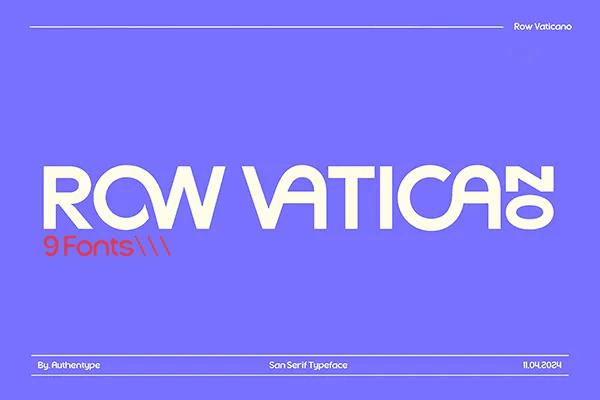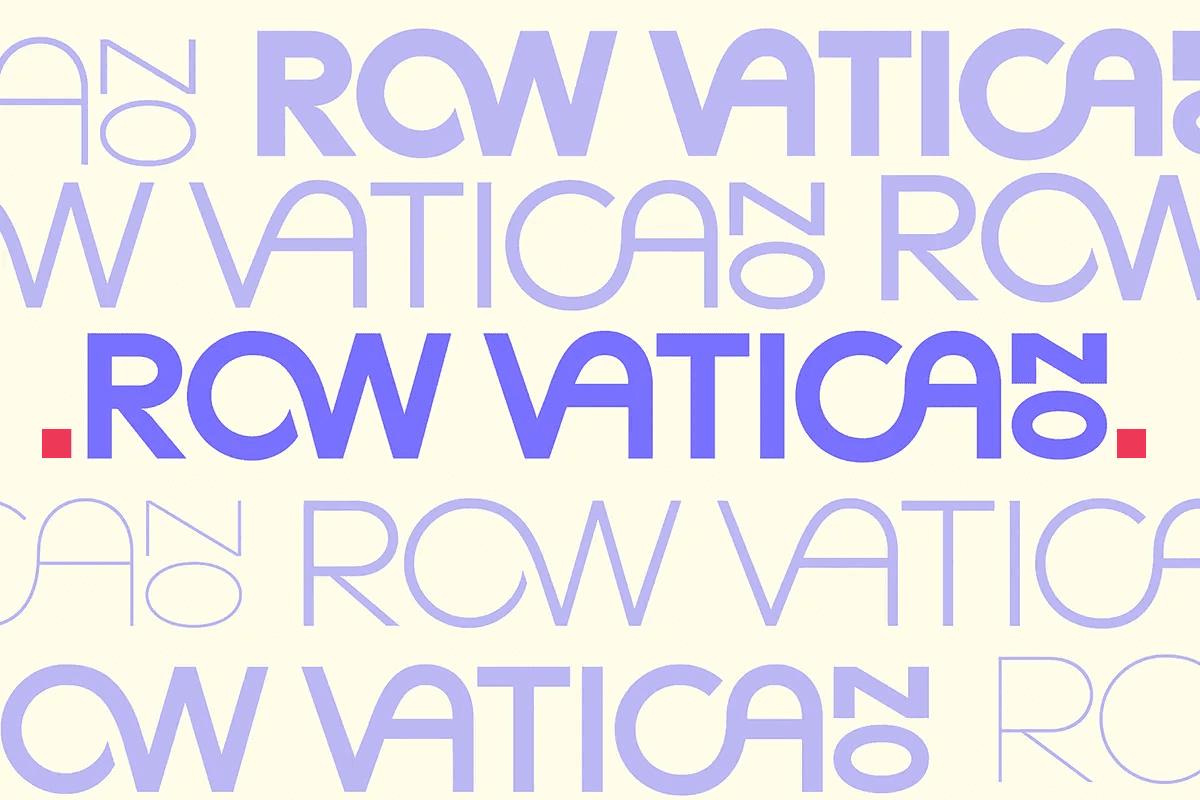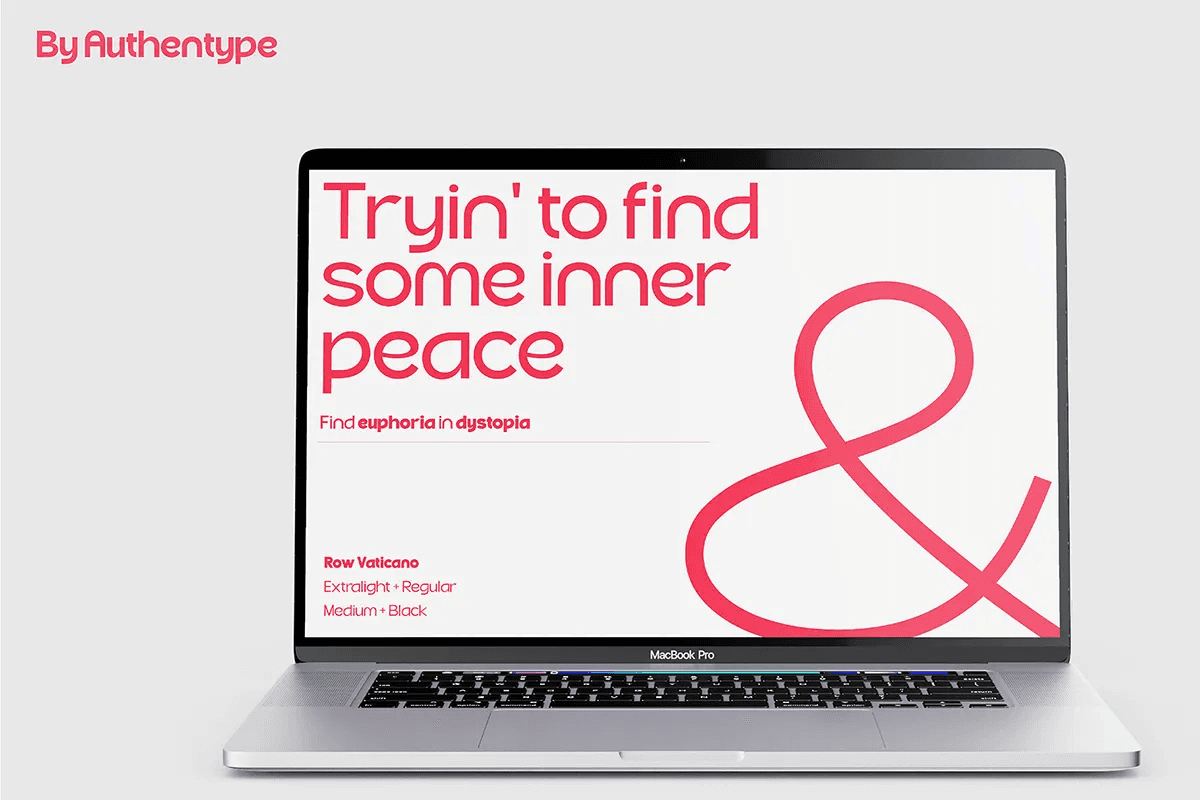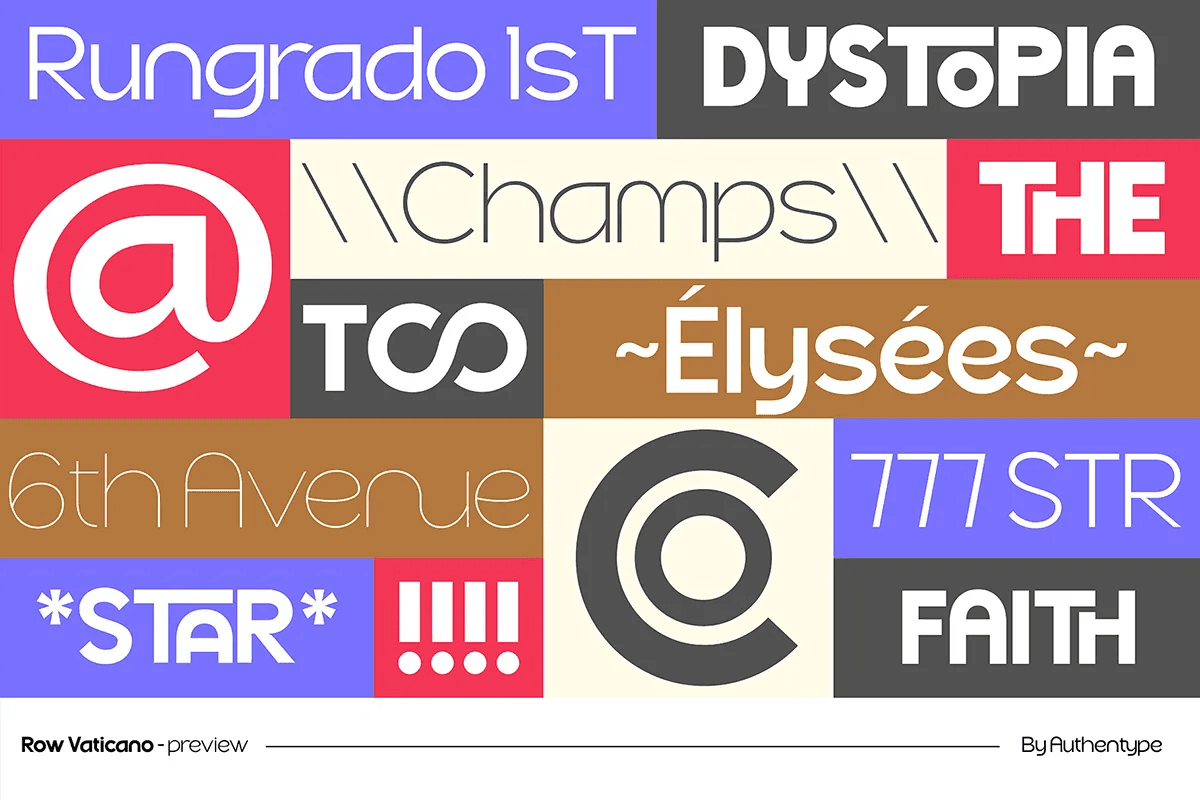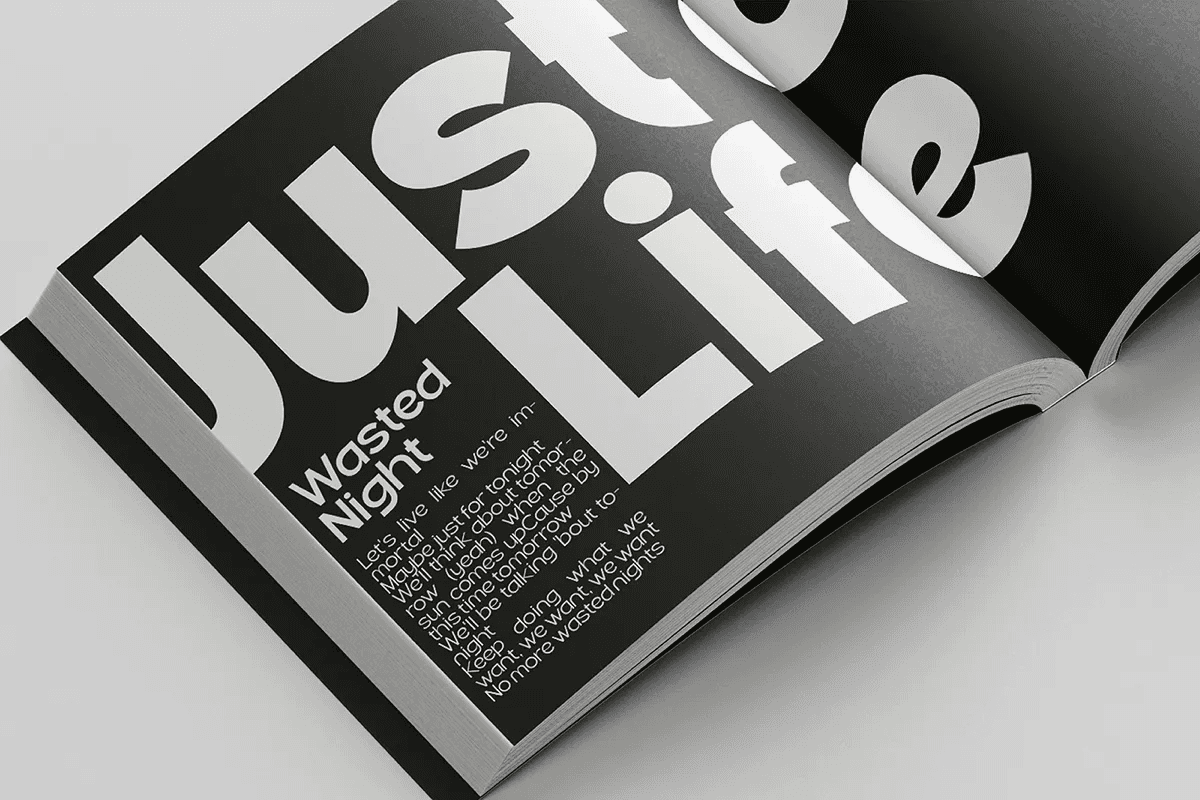
Row Vatikano Black Font is a clean and minimalistic sans-serif font designed to bring a sense of ease and sophistication to any project. With its relaxed and friendly look, Row Vaticano is perfect for brands seeking an approachable yet modern aesthetic. Its balanced letterforms and soft edges make it suitable for a variety of design applications, from branding and packaging to digital media.